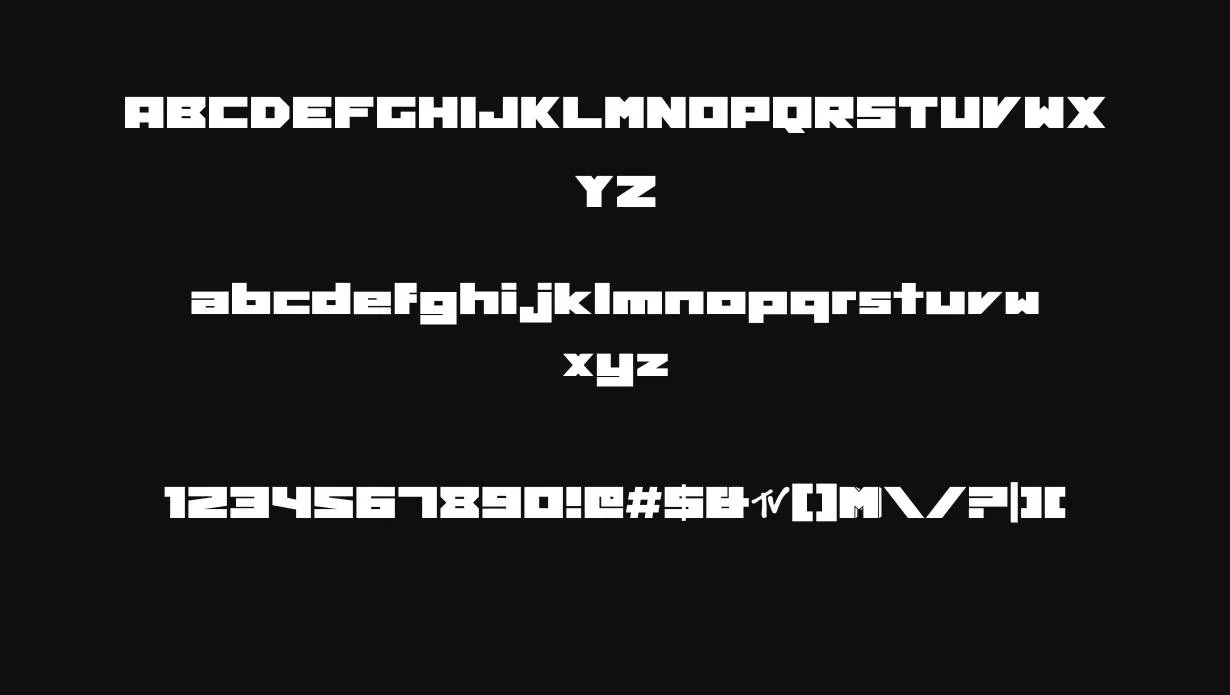
MTV Lowercase 2 Font exudes a sleek and modern style. Its clean and simple letters add a contemporary and chic feel to any text.
This font is frequently employed in digital or media-related designs, contributing a sense of sophistication and minimalism to the text, making it look stylish and sharp. For a more alluring design project, I suggest incorporating this font alongside another distinctive typeface like the freezone font.